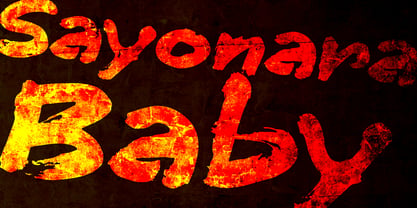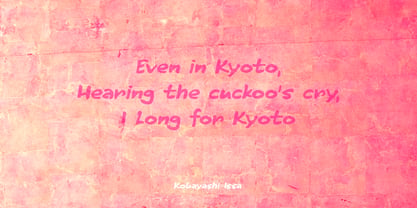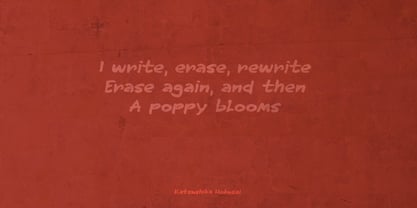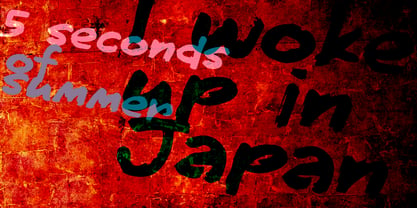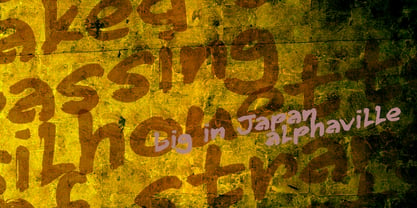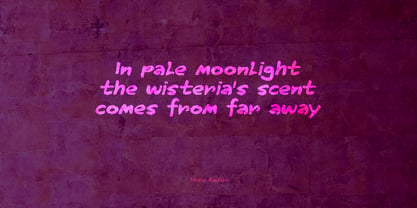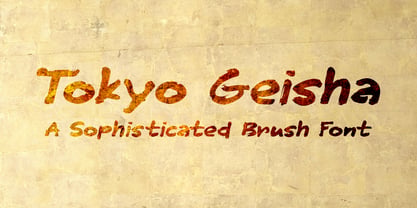
Tokyo Geisha Pro
von Hanoded
Die Schriftfamilie Tokyo Geisha Pro wurde von David Kerkhoff entworfen und von Hanoded veröffentlicht. Tokyo Geisha Pro enthält 2 Stile und Familienpaketoptionen. Mehr über diese Familie
My wife was watching ‘Memoirs Of A Geisha’ the other day, and I am going to take my son Sam to see Japan in May this year, so when I started drawing out the glyphs for this font, the name was already chosen! Tokyo Geisha is a handmade brush font. I made it with Chinese ink and one of the Chinese brushes my late father in law gave me.
Tokyo Geisha is a font with speed and a certain flamboyance. It comes with extensive language support and a cool .notdef glyph. I am sure you will put it to good use!
Arigato Kozaimasu!
Designer: David Kerkhoff
Foundry: Hanoded
Hanoded is run by Dutchman David Kerkhoff. His fonts are a mishmash of styles, as he just creates whatever pops into his head. You will find a lot of brush fonts in his collection, as his favourite tools are brushes and Chinese ink, with cartoon style fonts and script fonts complementing his repertoire. Aside from making fonts, David occasionally guides tours in far-flung places, renovates his '30's house and tries reasoning with his wife and (teenage) kids. Not an easy task!